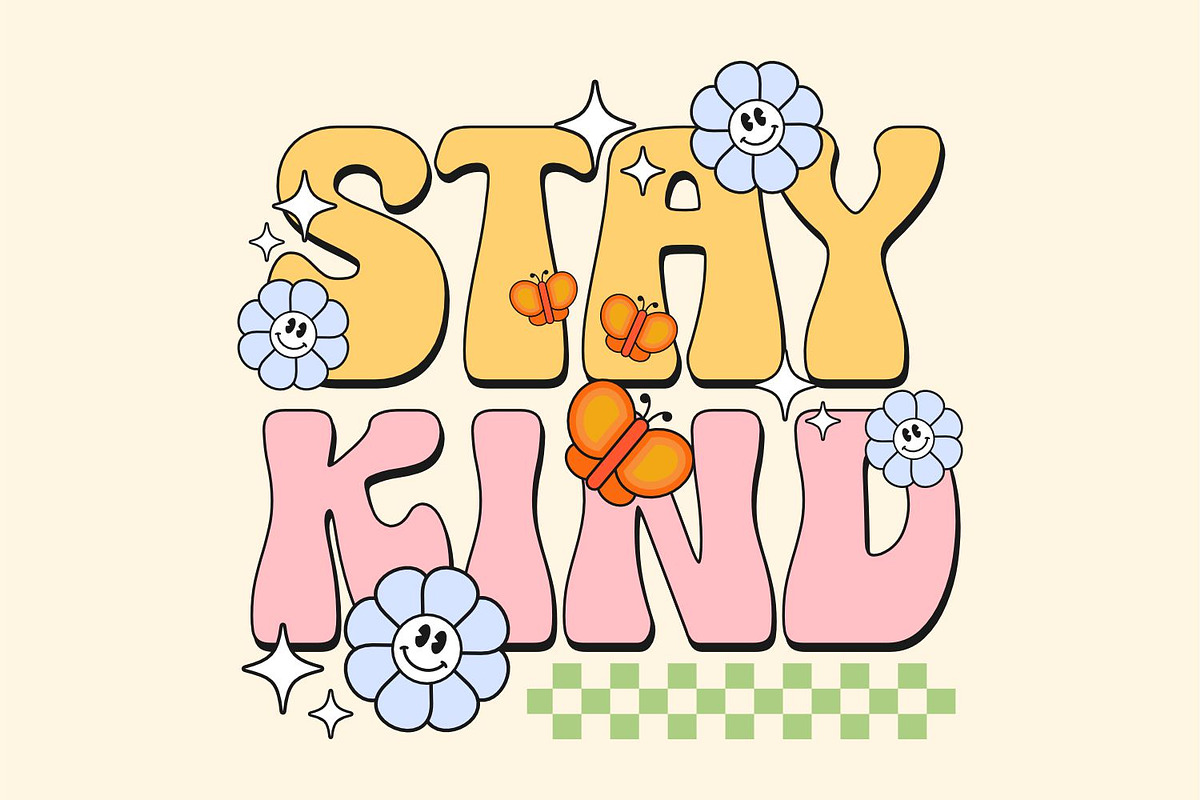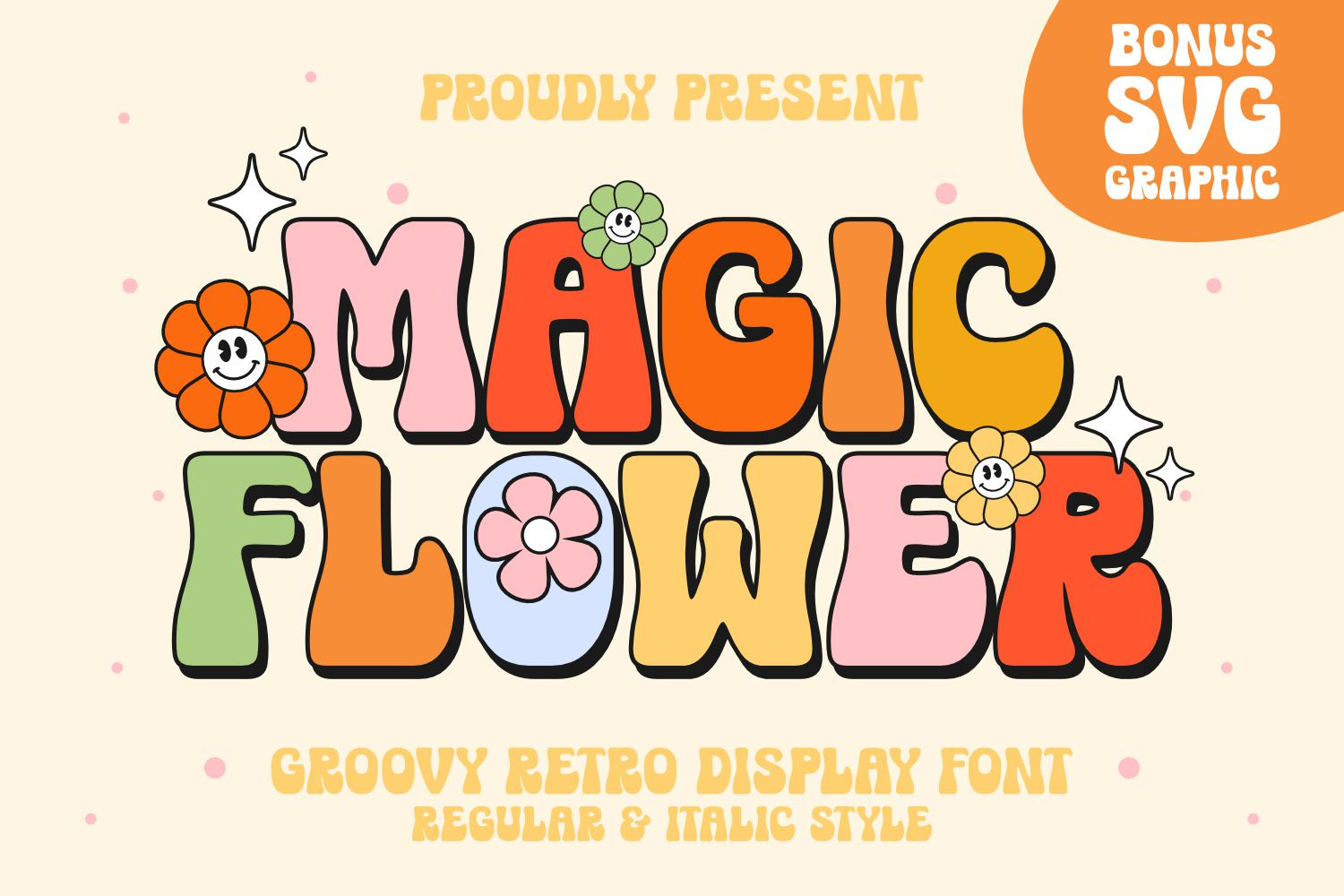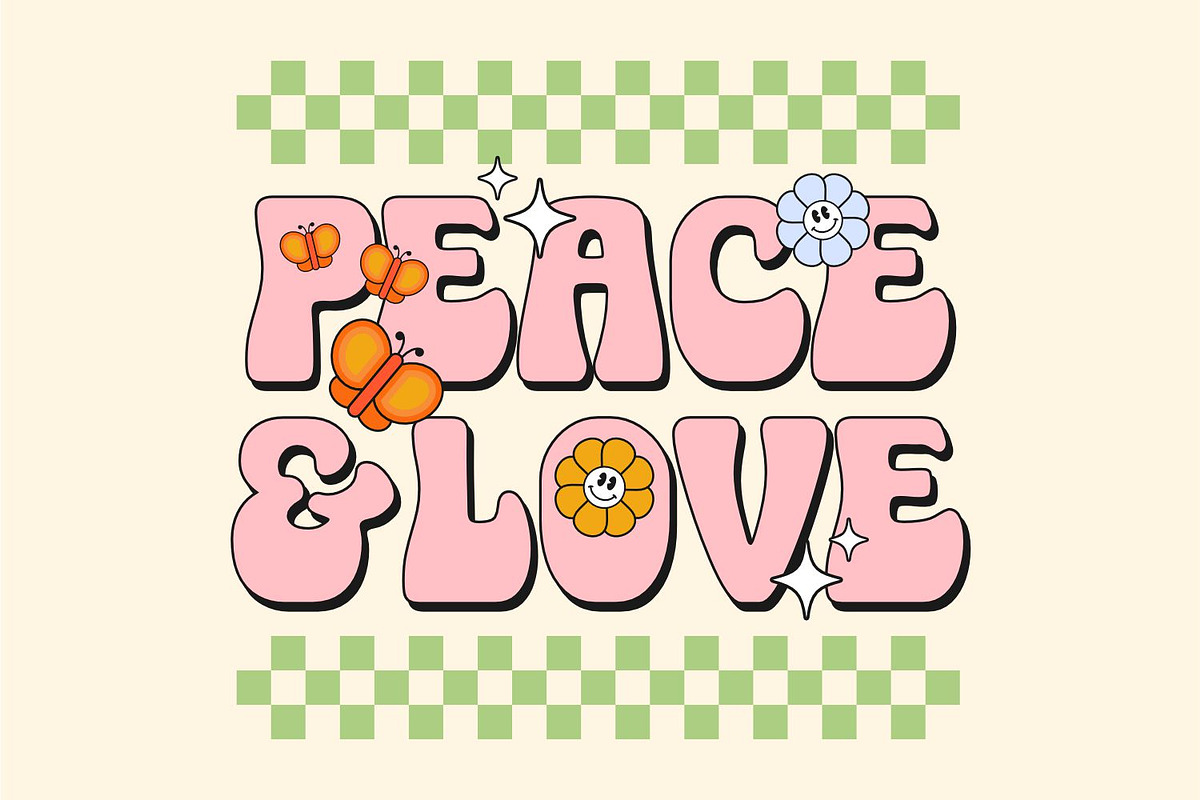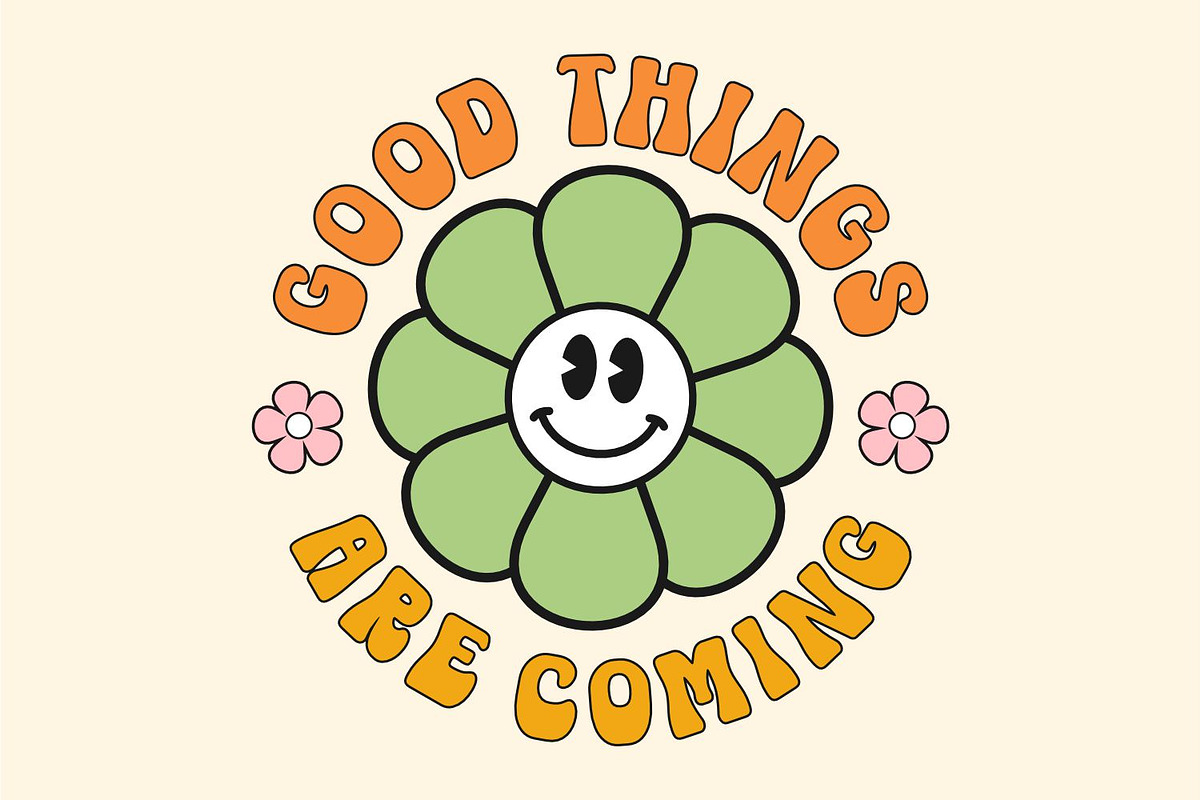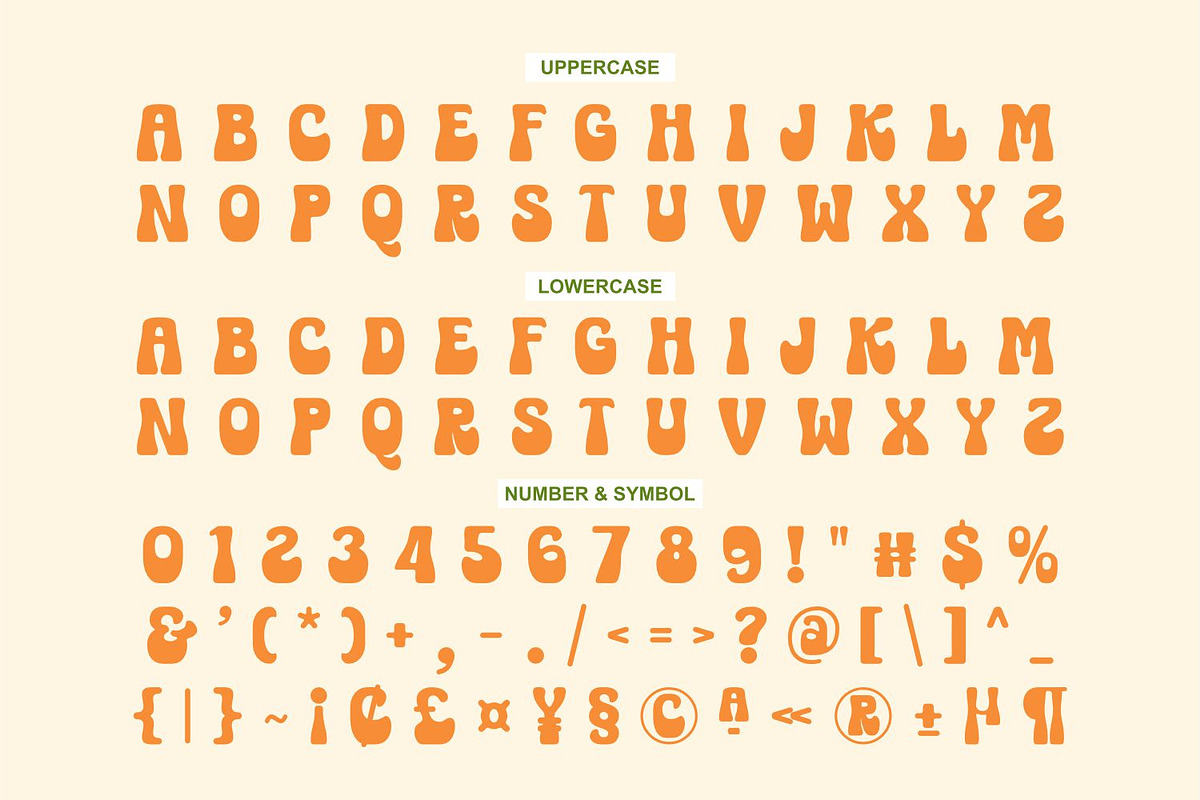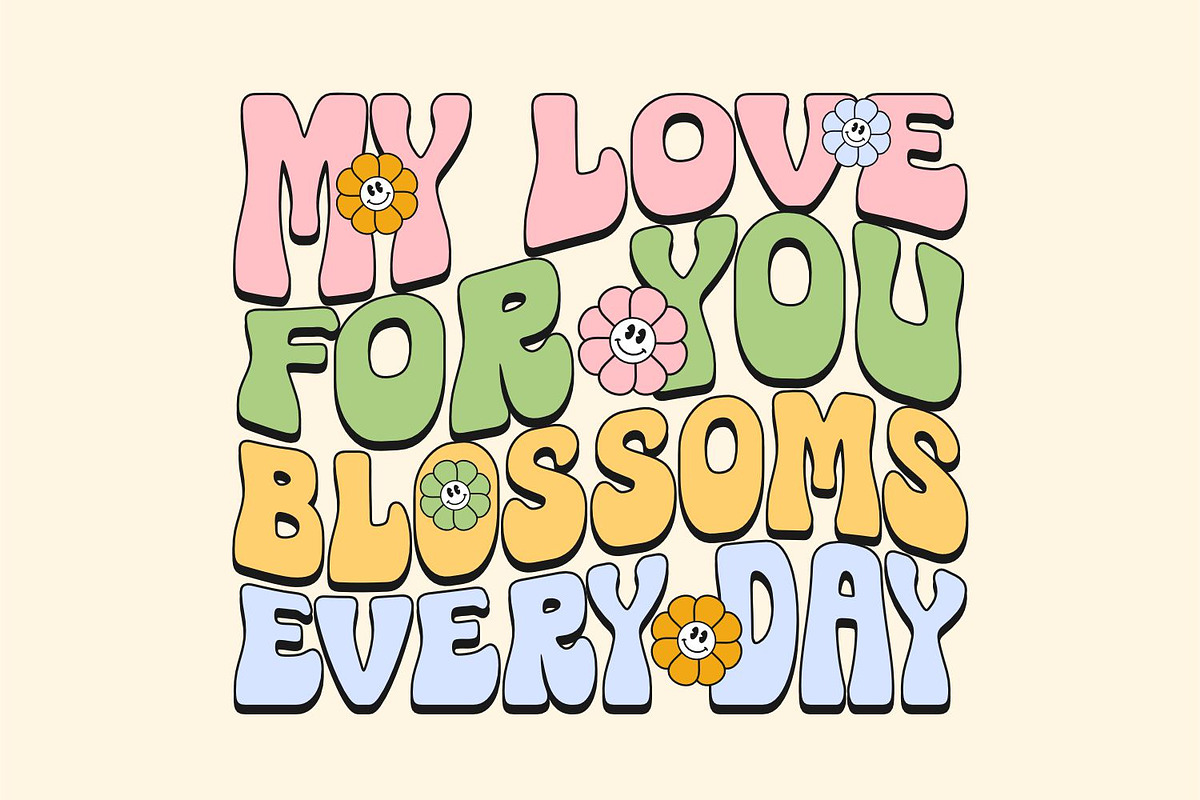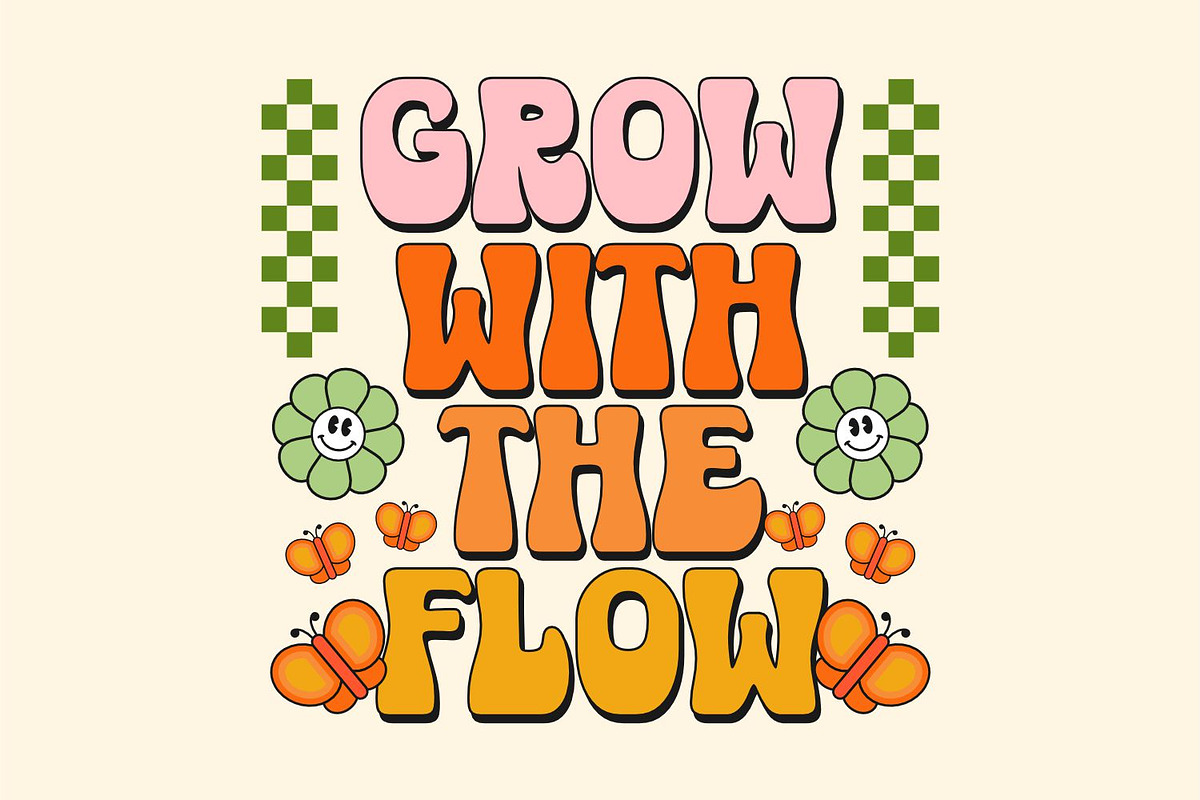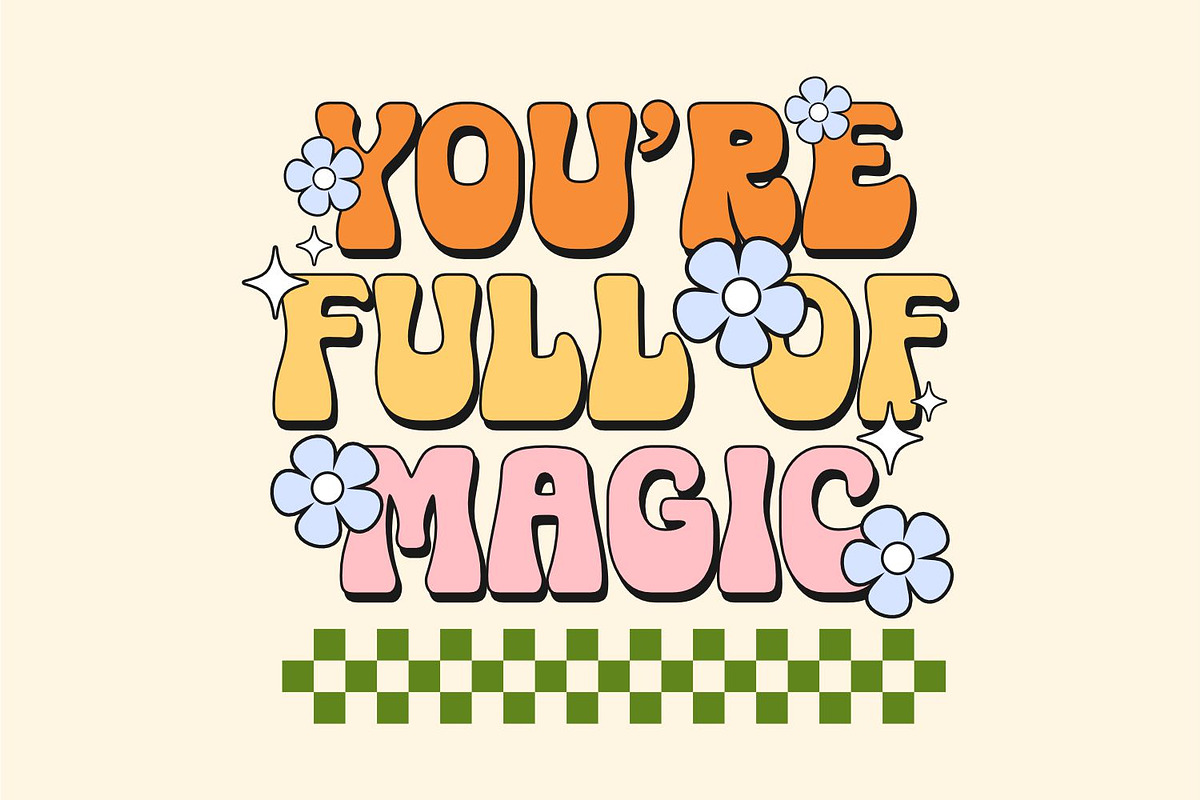
MAGIC FLOWER - GROOVY FONT
Magic Flower is a retro-inspired display font that exudes a hippie and groovy vibe. Its whimsical letterforms are reminiscent of the flower power era and the psychedelic movement. The thick and thin strokes of the font are uneven, creating an organic and handcrafted feel. Magic Flower is perfect for designs that want to bring a playful and carefree spirit to their projects.